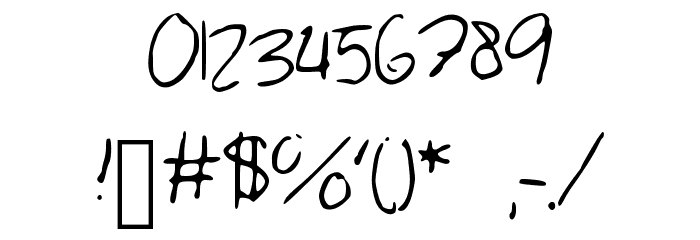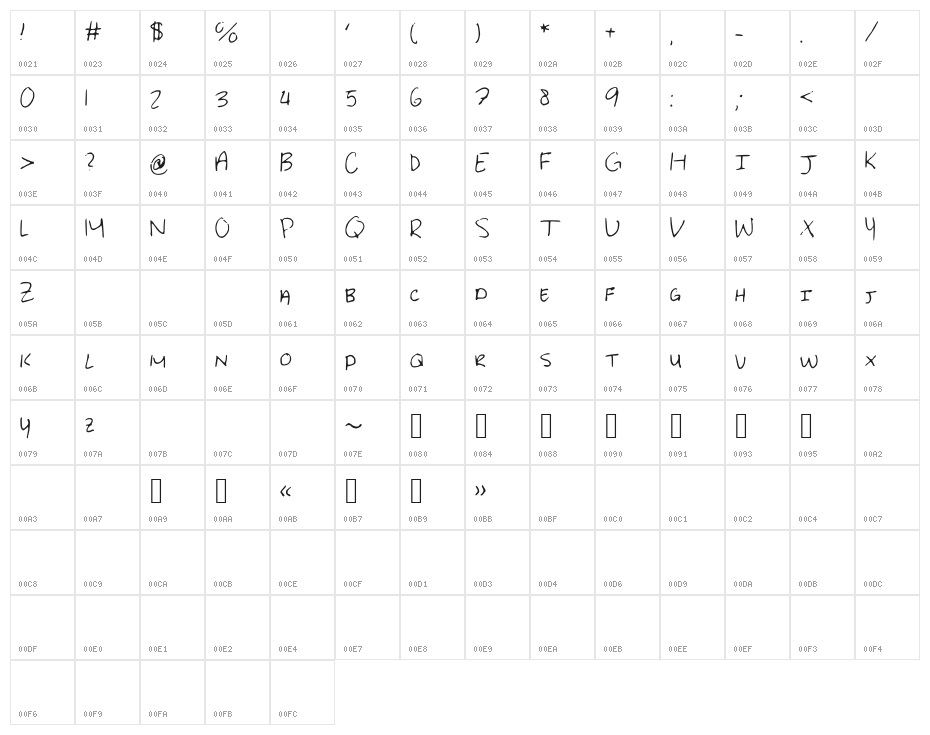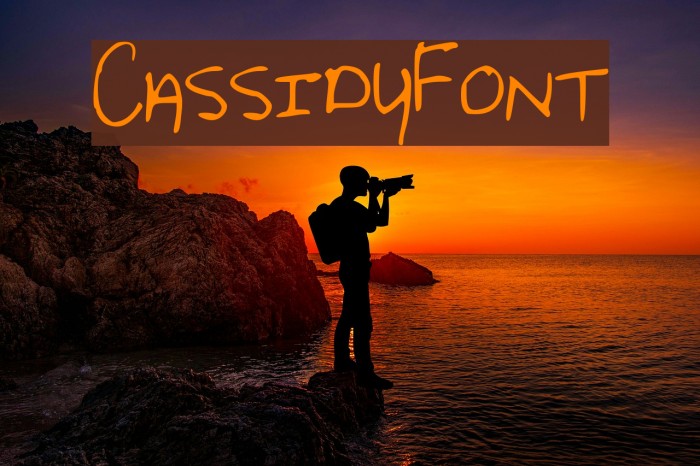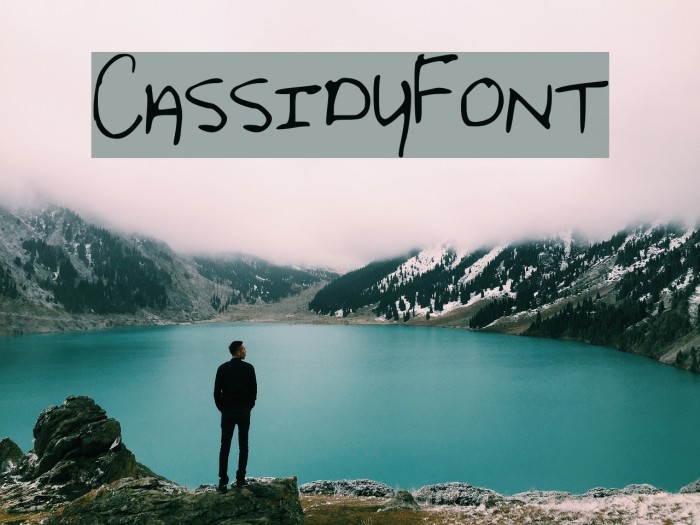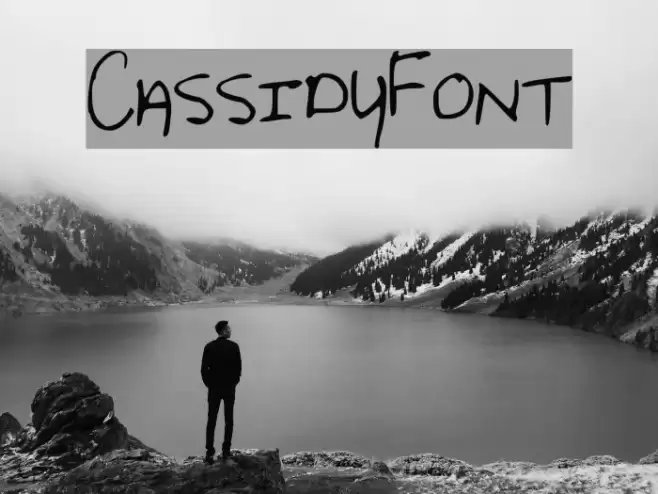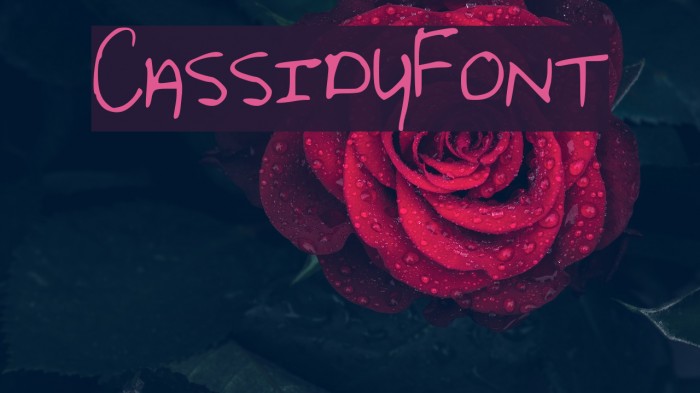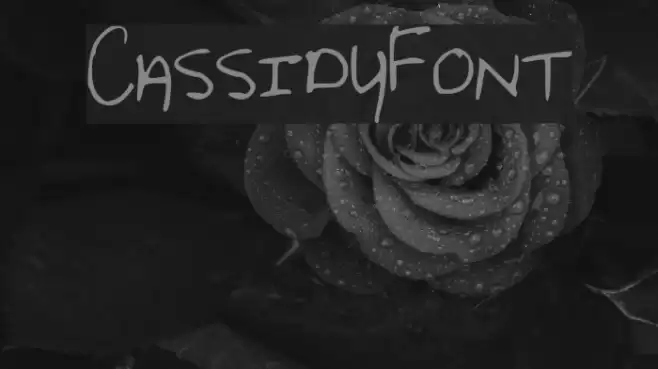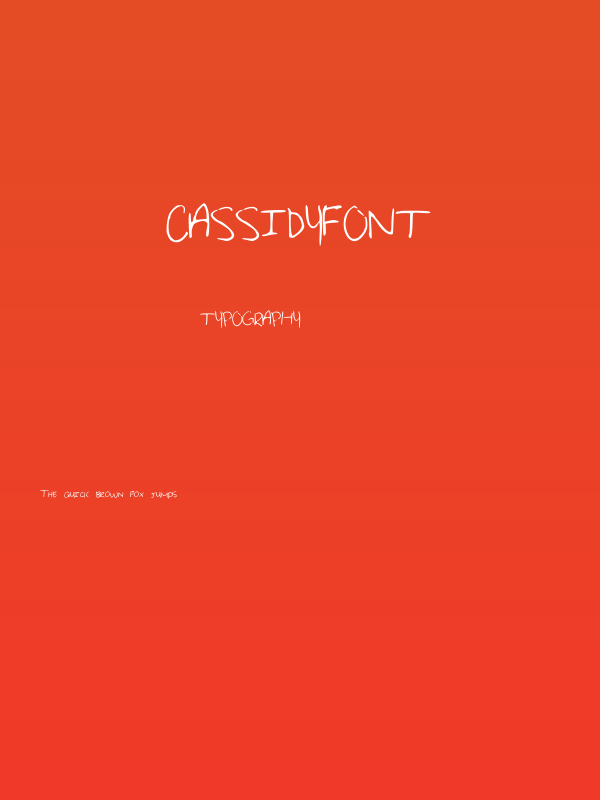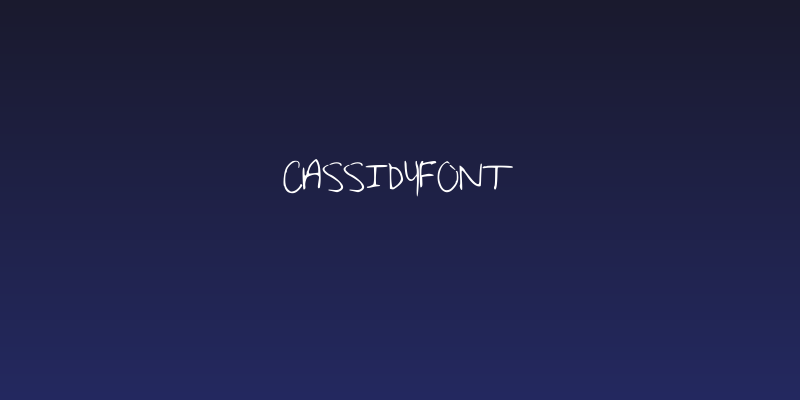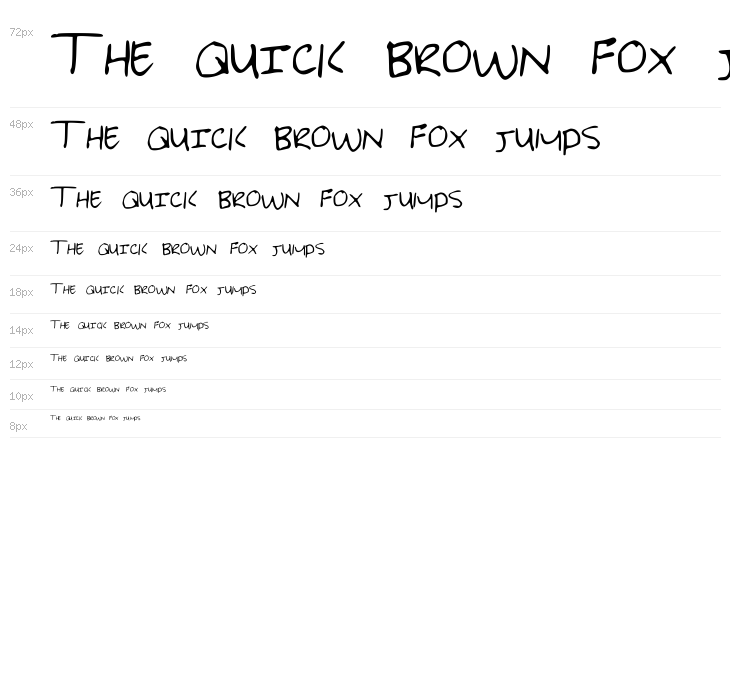
CassidyFont Font
CassidyFont Description
This font features a playful and casual handwritten style, characterized by its irregular strokes and slightly tilted letters. The uppercase and lowercase letters maintain a consistent flow, giving it a natural and organic feel. The numerals and special characters complement the overall style, adding to its informal and approachable appearance. The font's unique personality makes it suitable for projects that require a personal touch or a relaxed vibe.